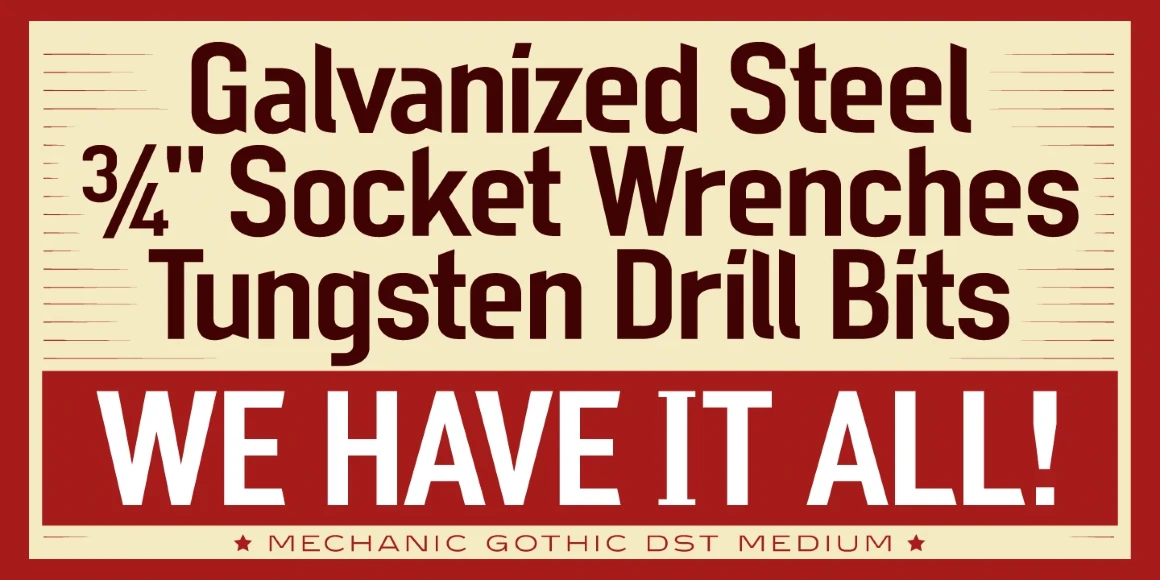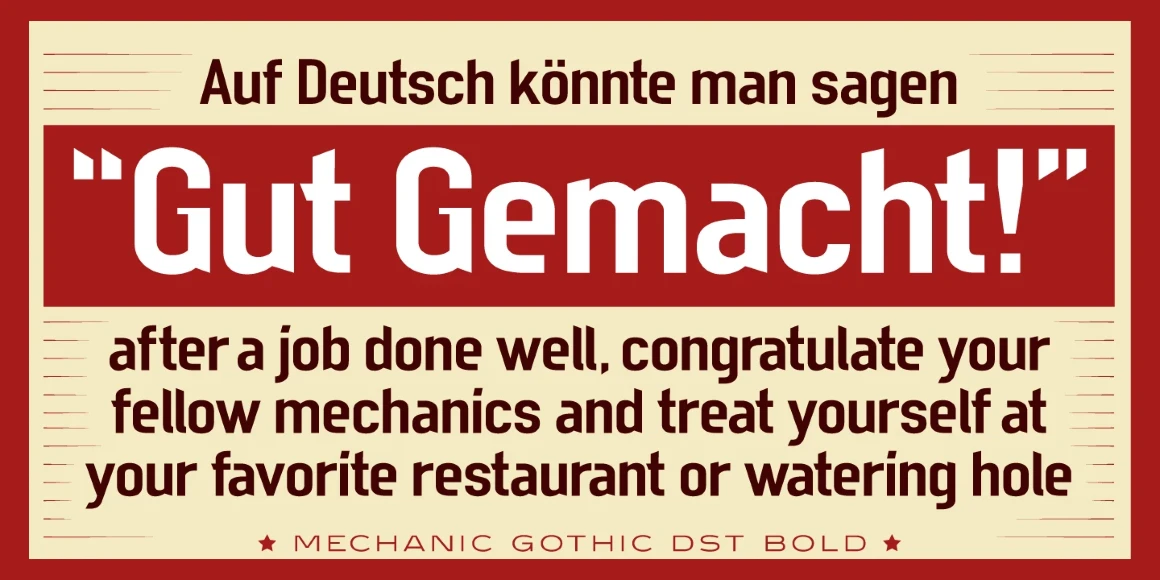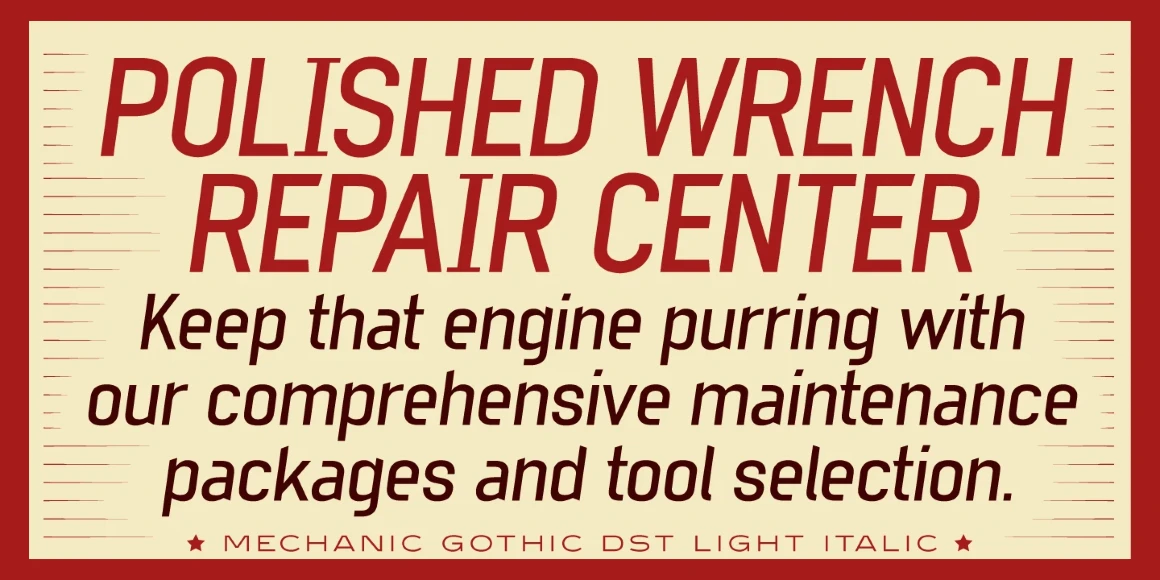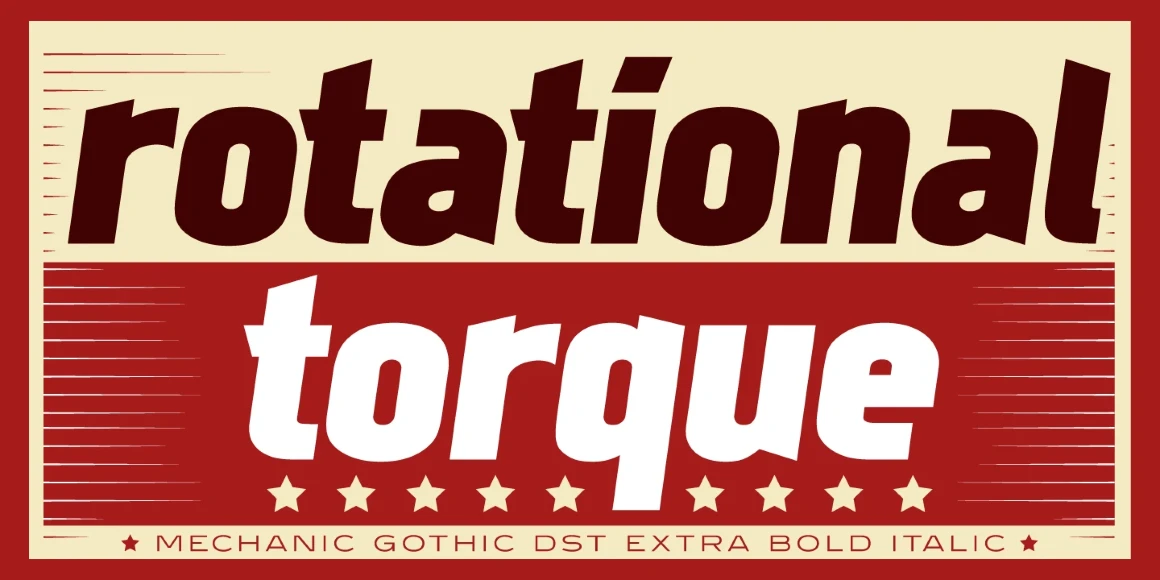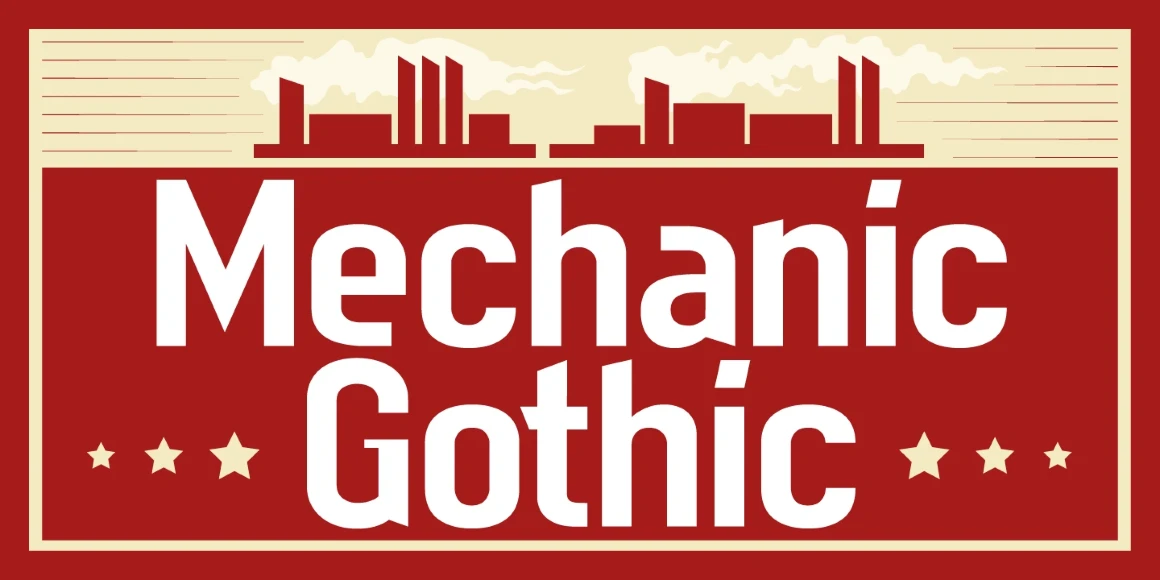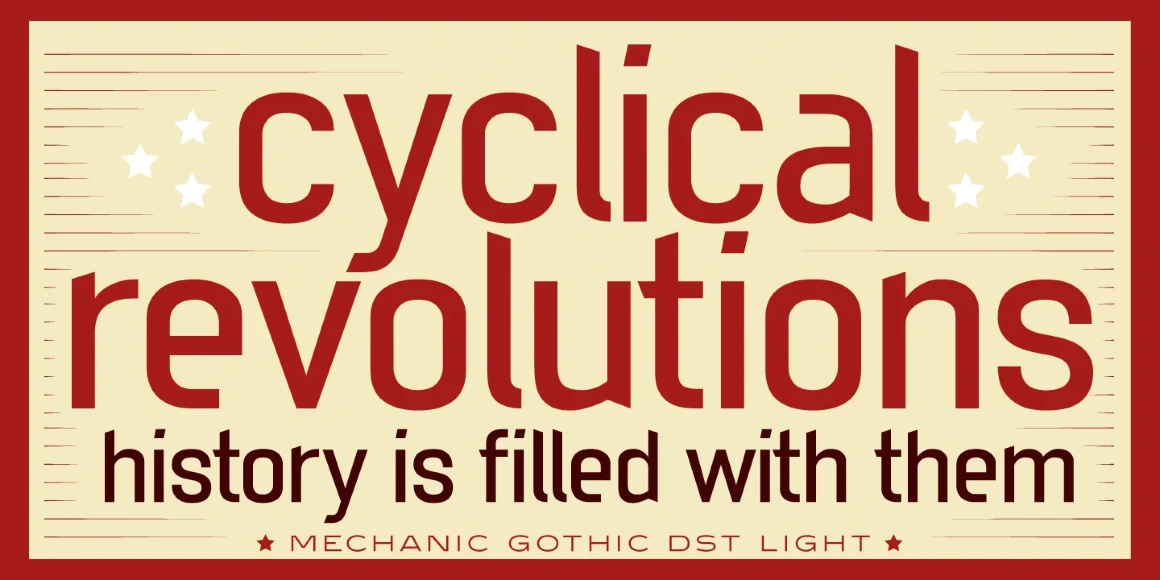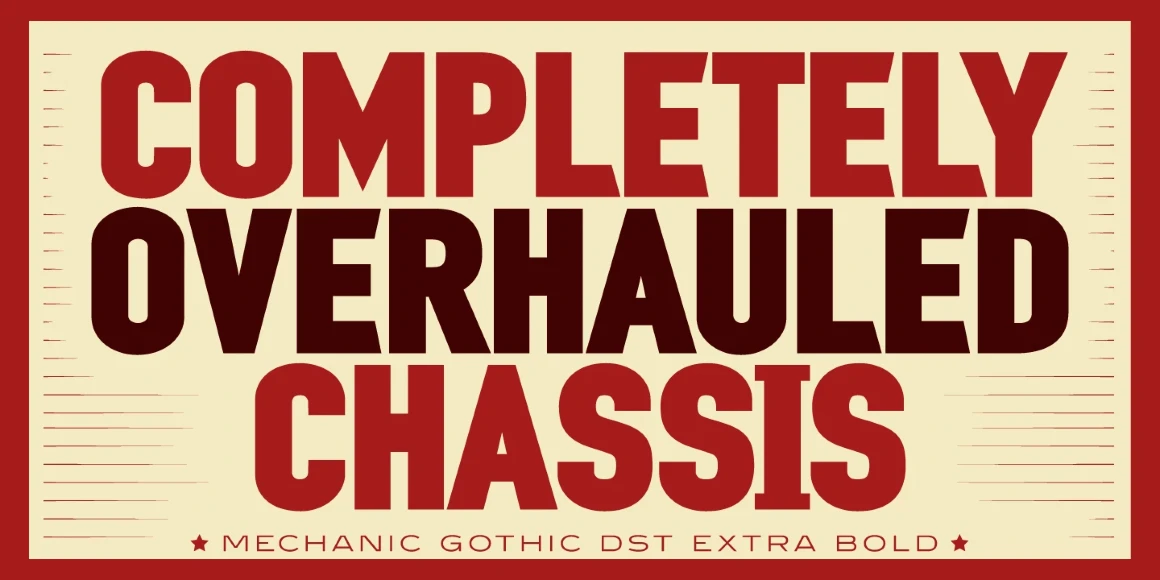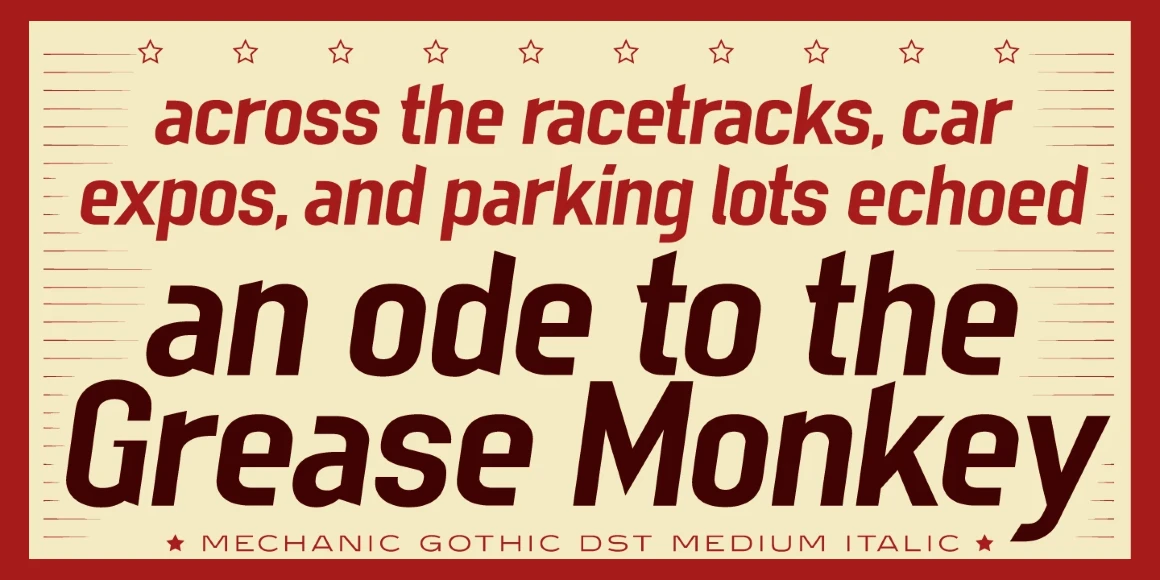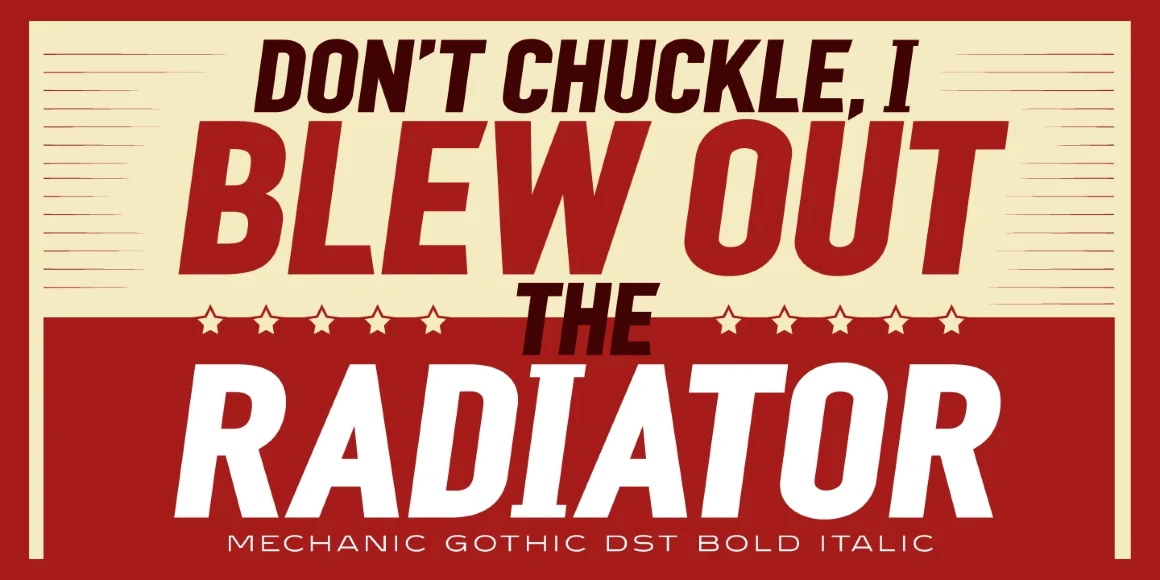
Mechanic Gothic
Mechanic Gothic DST is a condensed sans serif font family designed by Darren Scott. It was remastered and produced by Steve Jackaman (ITF) in 2004. Mechanic Gothic DST is influenced by typefaces used for impactful advertising during the Industrial revolution, and draws on elements from the works of 19th-century American wood type makers. It has several classic condensed sans-serif elements, and Scott injected a contemporary twist to refresh the character shapes. Jackaman re-crafted Scott’s original Mechanic Gothic for this exclusive re-release, and gave it a more conventional range of weights plus italics.